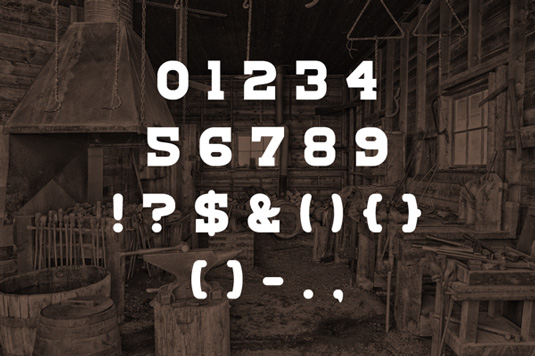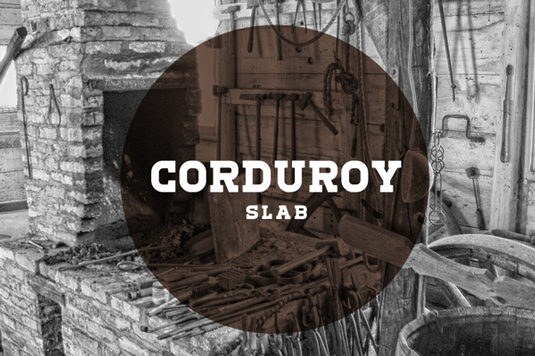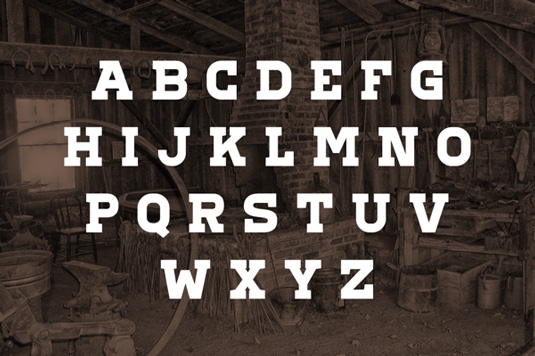
Font of the day: Corduroy
Corduroy by Ryan Welch
Rochester based designer Ryan Welch has a knack for producing eye-catching fonts, and he's made a regular appearance in our font of the day picks. "Corduroy is a hard working and sturdy slab-serif display font designed to make your headlines stand out and be assertive," says Welch.